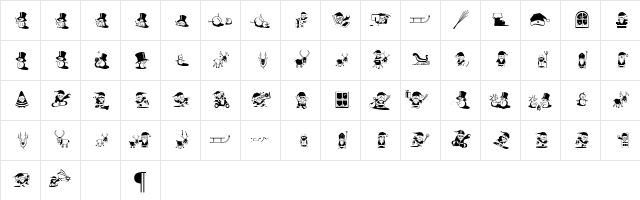
Xmas Modern Free Font
Xmas Modern
Style: Modern
Designer: Fuenfwerken Design AG
Xmas Family
Xmas Modern
Design Context for Xmas
Xmas is a composed and adaptable typeface that performs quietly and consistently across a wide range of design contexts.